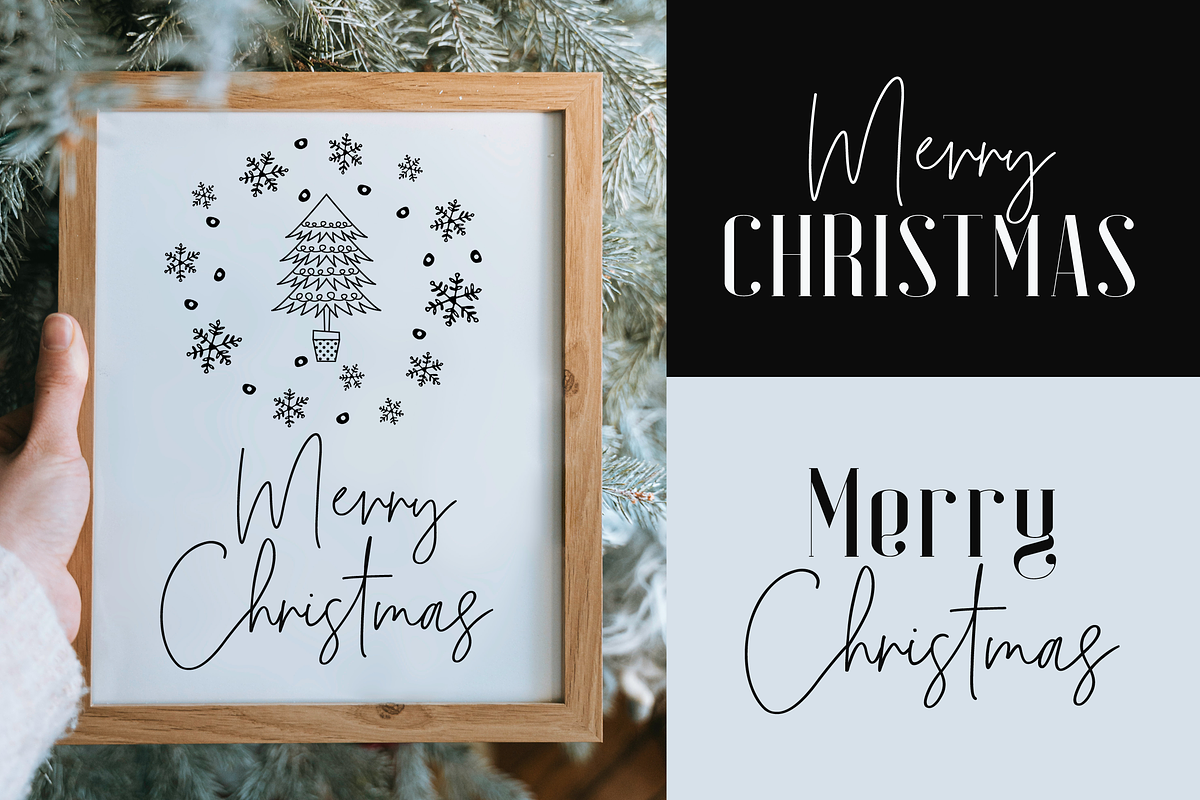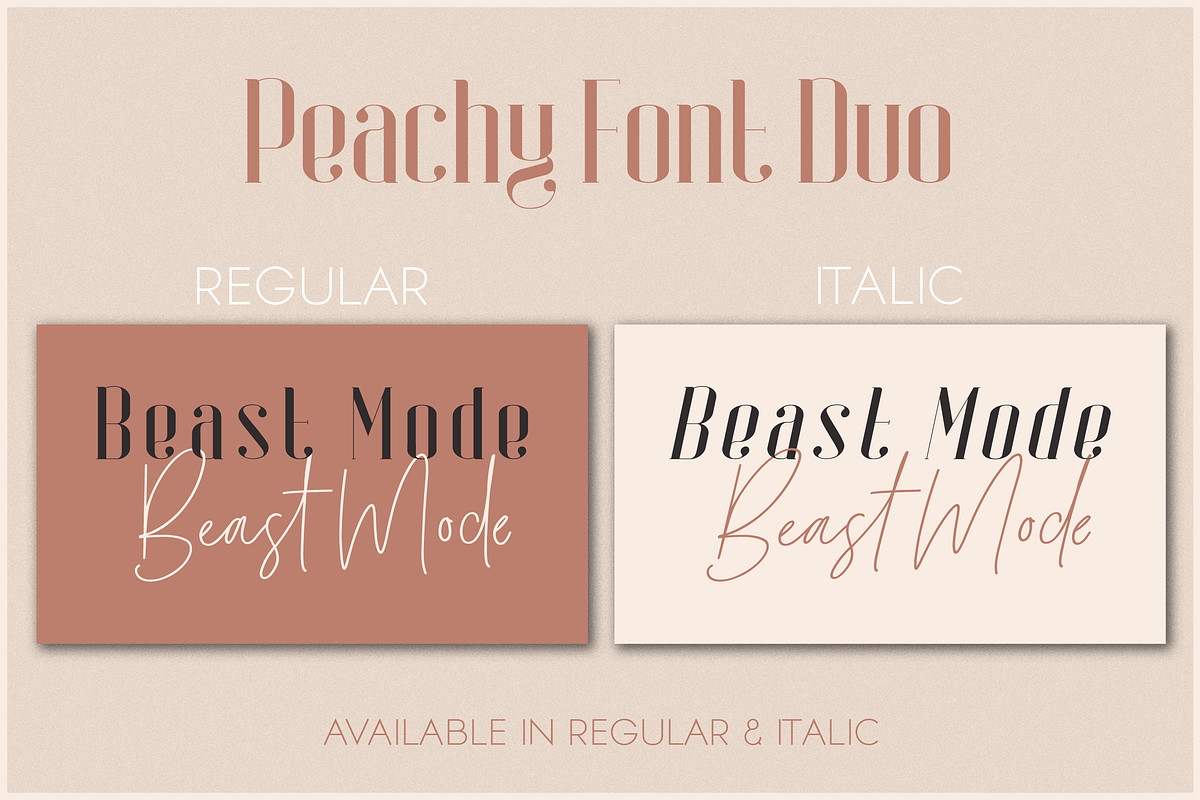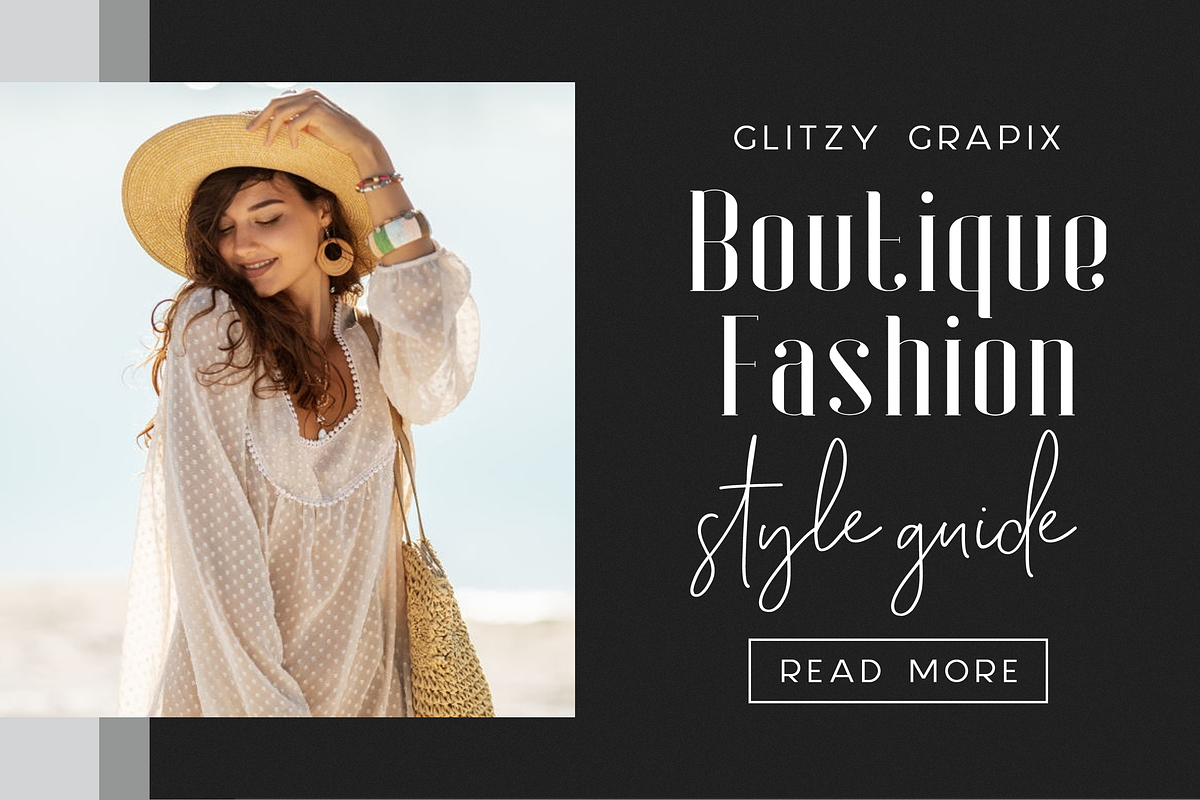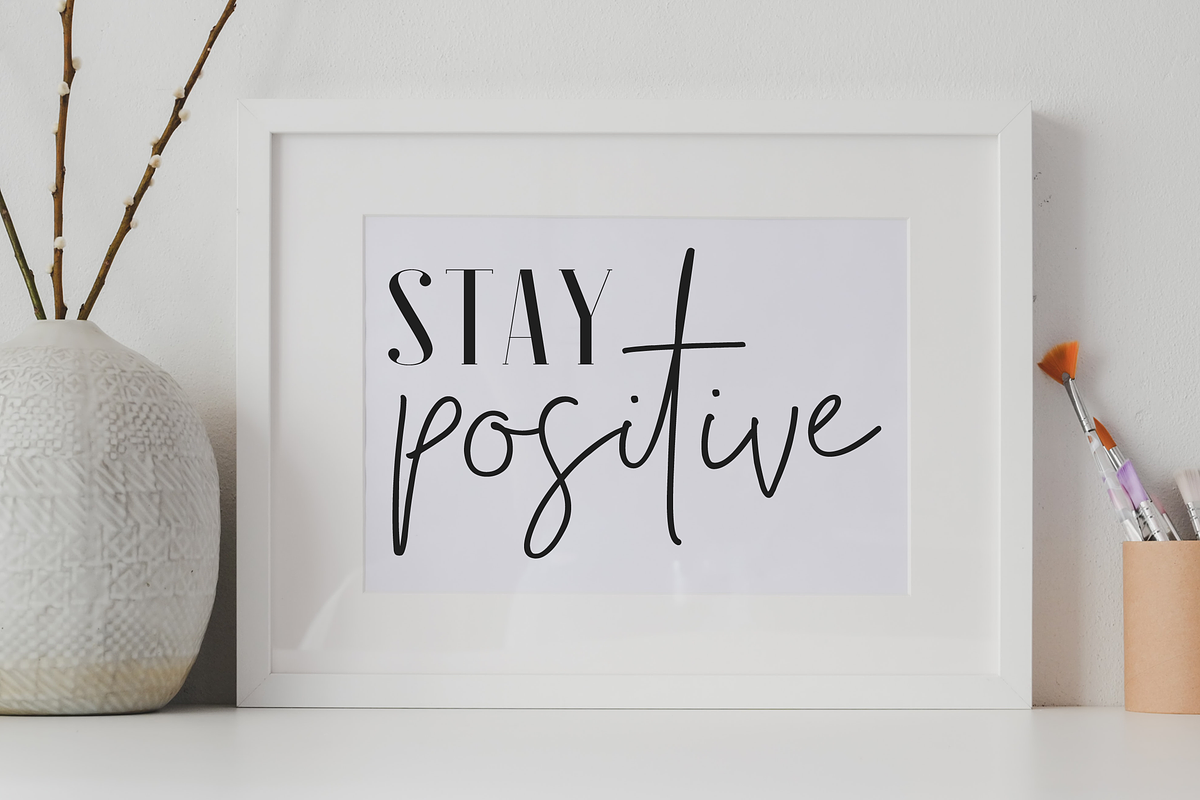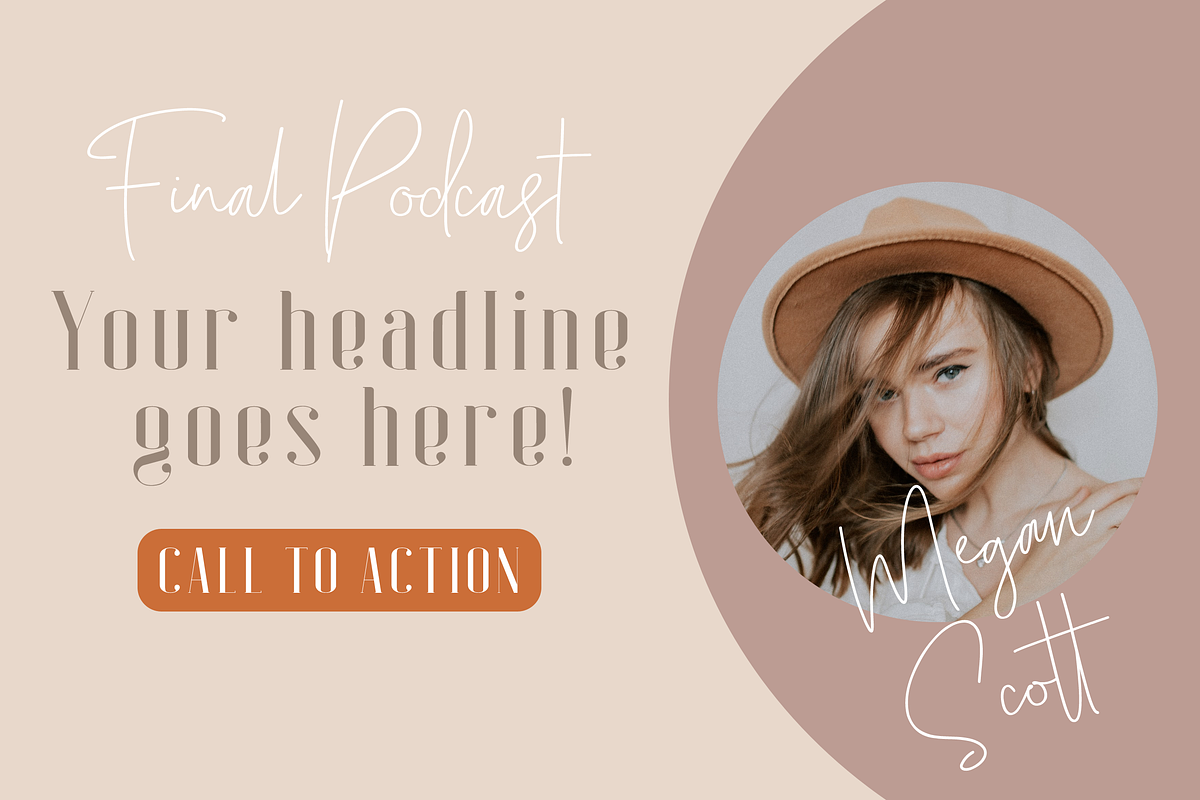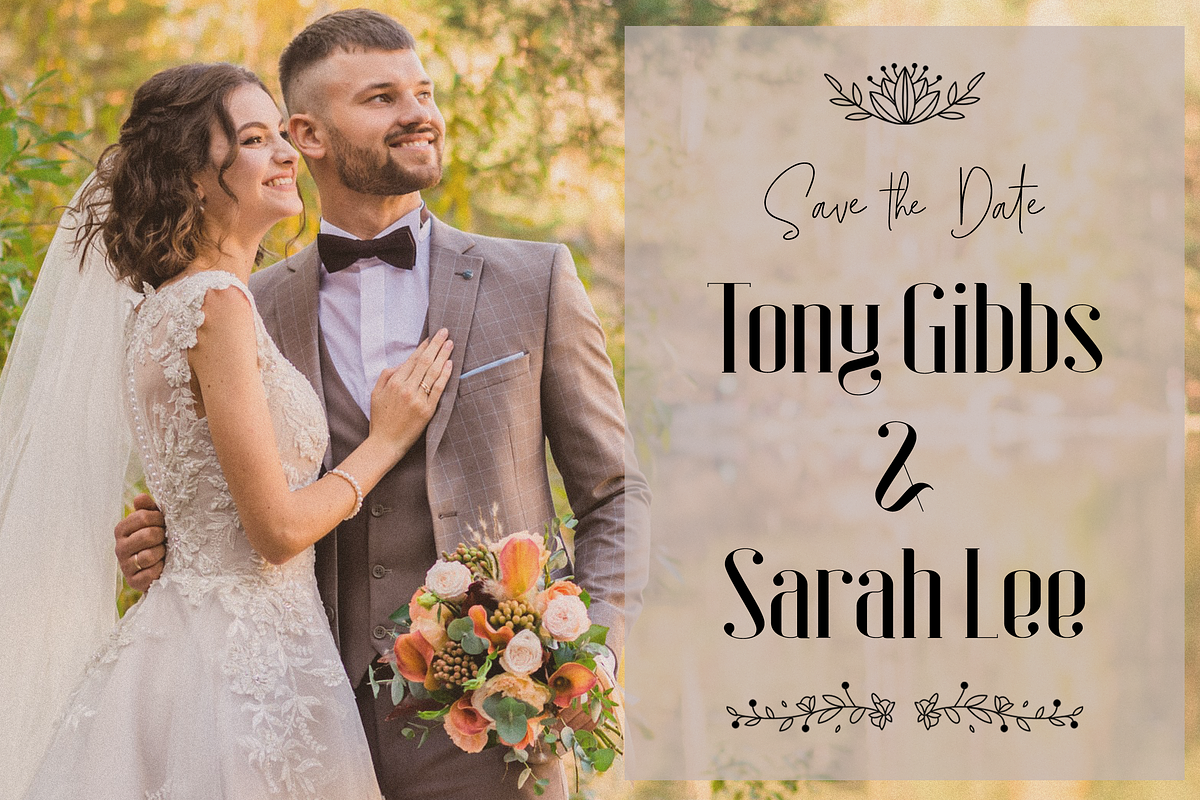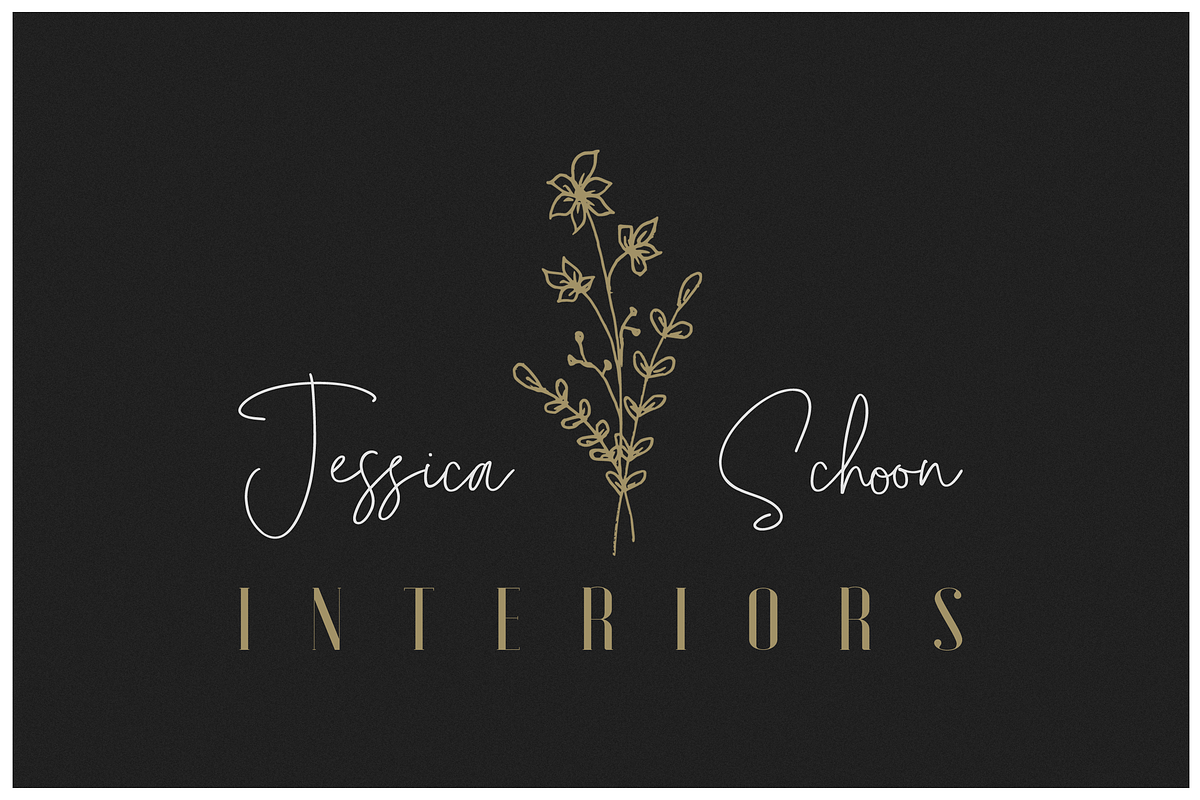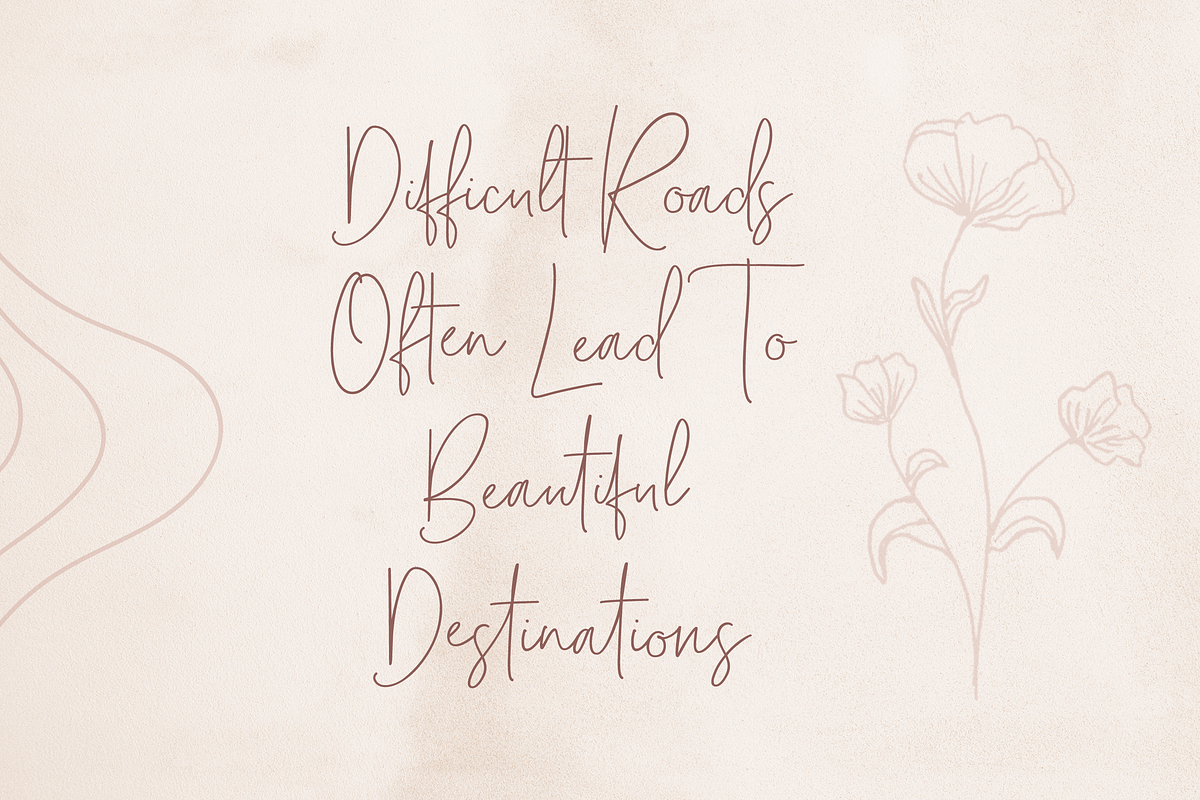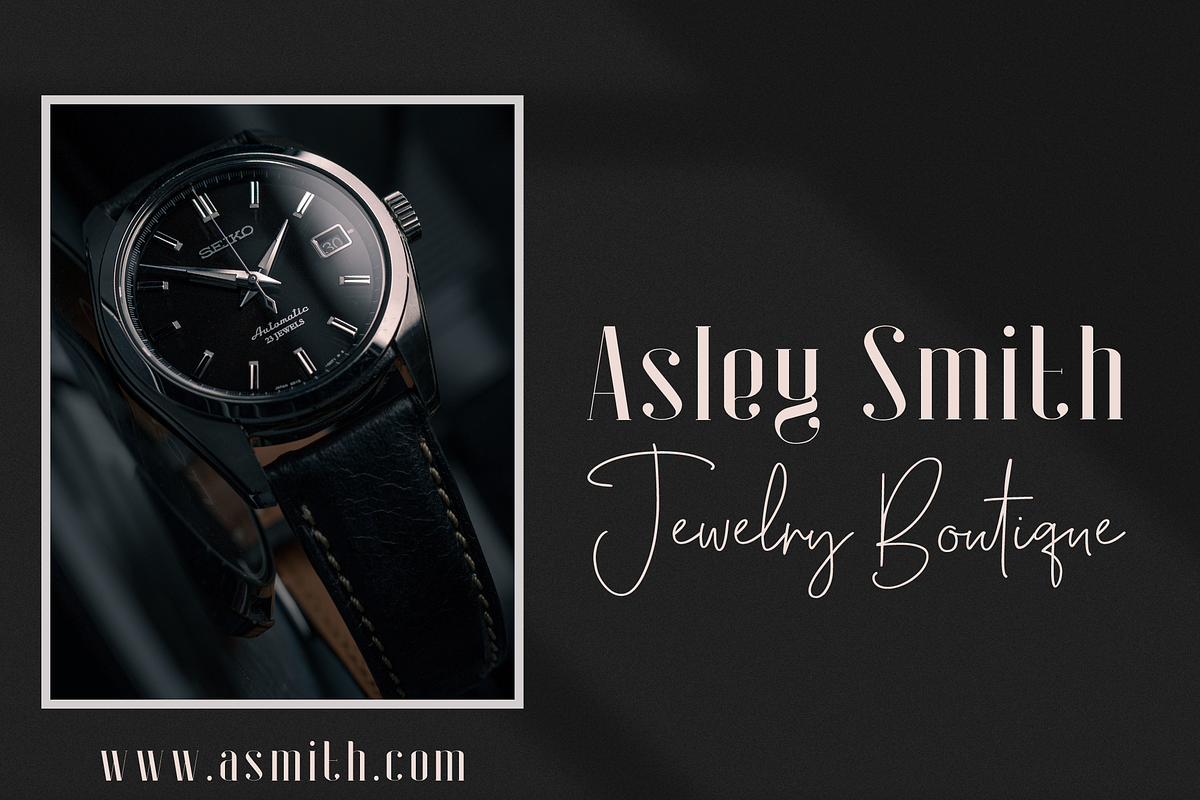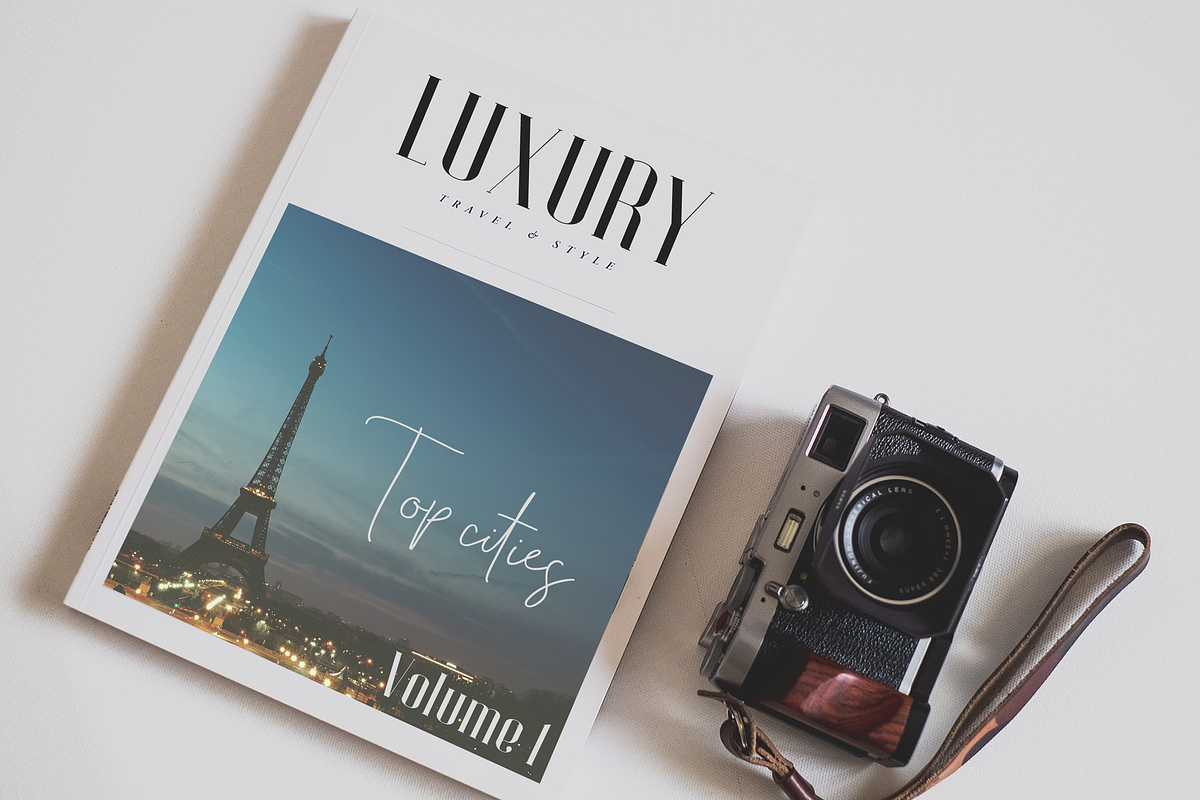
Peachy Font Duo
Peachy Font Duo is a modern and luxurious font pair. Its neat and elegant look will give your design a stylish and modern touch.
Peachy Script is a beautiful, elegant hand-drawn script font. The script has uppercase, lowercase, all punctuation and numerals. Peachy Script includes 26 unique alternates and 78 ligatures to give your project a unique look. The script is PUA encoded which means you can access all of the glyphs and swashes with ease! Preview the font by typing your text into the text preview box on this page.
Peachy Serif is a display font made mainly for headlines, titles, and other short texts and is well-suited for headers, advertising, luxury mood board, branding, logotypes, packaging, titles, holiday-themed greeting cards, magazines, wedding designs, social media posts, modern and elegant design. The serif has uppercase, lowercase, all punctuation and numerals. Preview the font by typing your text into the text preview box on this page.